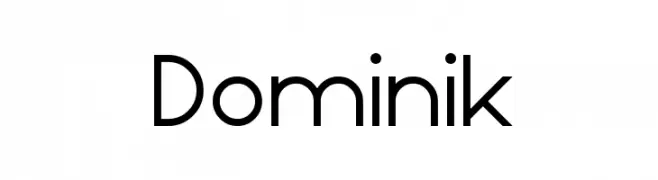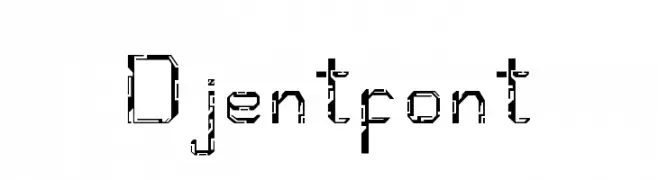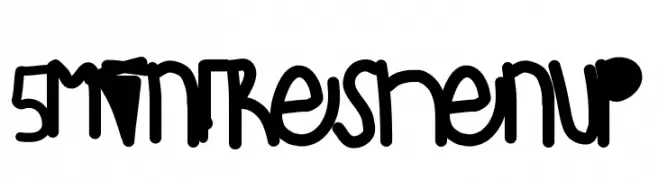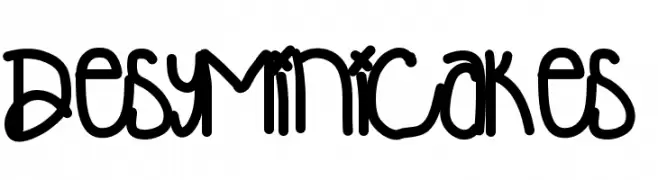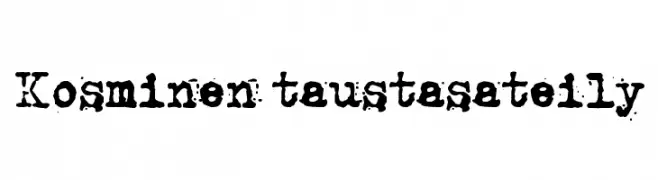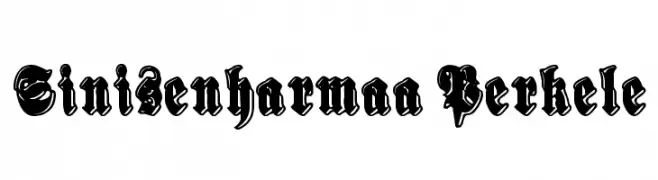
( Fonts by Zdenek Gromnica - www.futuremillennium.com )
A modern, geometric sans-serif font with clean lines and balanced spacing.
( Font by Jayvee D. Enaguas - grandchaos9000.deviantart.com )
A bold, pixelated font with a retro, digital style.
A modern, industrial font with angular shapes and intricate cut-out patterns.
( Fonts by Des Gomez )
A playful, handwritten font with bold, rounded characters and whimsical embellishments.
( Fonts by Des Gomez )
A bold, expressive font with swirling, decorative strokes and a playful, artistic flair.
( Fonts by www.junkohanhero.com )
A distressed, grunge-style font with a textured, vintage appearance.
( Fonts by www.junkohanhero.com )
An ornate blackletter font with bold, intricate designs and sharp, angular edges.
( Fonts by www.junkohanhero.com )
A bold, decorative font with a playful, outlined style.
( Fonts by www.junkohanhero.com )
A bold, hand-drawn font with a raw and expressive style.
( Fonts by www.junkohanhero.com )
A playful, handwritten font with dynamic and irregular strokes.
( Fonts by www.junkohanhero.com )
A bold, graffiti-inspired font with dynamic, angular characters.
( Fonts by www.junkohanhero.com )
A bold, handwritten font with an energetic and playful style.
( Fonts by www.junkohanhero.com )
A playful, hand-drawn font with bold, irregular strokes.
( Fonts by www.junkohanhero.com )
A bold, brush-style font with dynamic, hand-painted strokes.
( Fonts by www.junkohanhero.com )
A bold, expressive handwritten font with dynamic strokes and a lively appearance.
( Fonts by Des Gomez )
A bold, playful font with a hand-drawn, energetic style.
( Font by Jonathan Harris - www.tattoowoo.com )
A bold, expressive handwritten font with dynamic strokes and a textured appearance.
A hand-drawn, sketch-like font with uneven weights and rough edges.
( Font by Jonathan Harris - www.tattoowoo.com )
A decorative font with a distressed, brush-stroke effect for dynamic designs.
( Font by Jonathan Harris - www.tattoowoo.com )
A whimsical and alien-like font with elongated, curved letterforms and bold numerals.
( Fonts by Des Gomez )
A playful, hand-drawn font with decorative elements and a whimsical style.